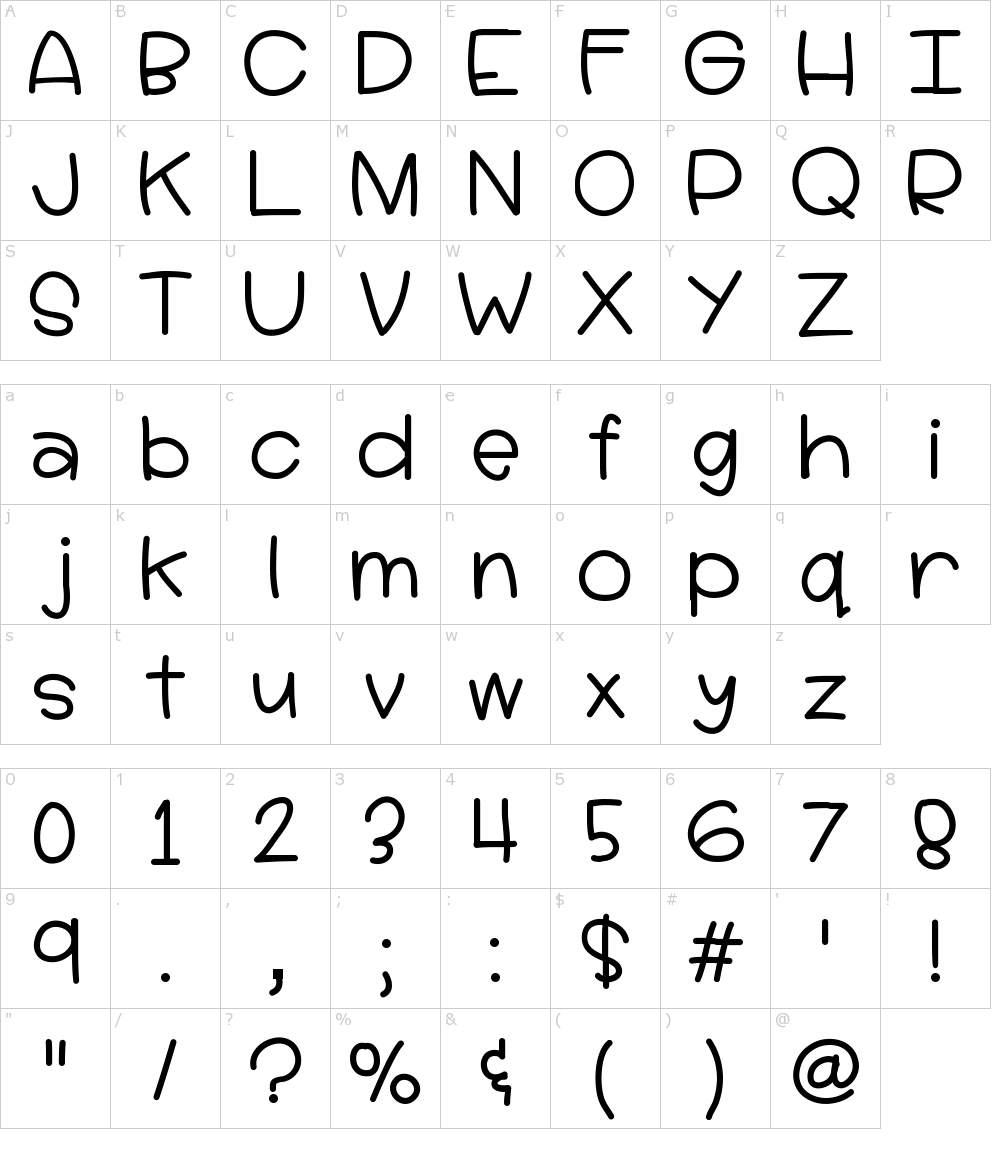
I Love Lucy Font Generator
The Lucy Script Font Is A Sans Serif Font Household Noted Due To Its Classic And Easy Appearance.
Free download of lucy said ok font. Defunct television programs of the united states. Create exciting school projects or cool promotional materials in seconds.